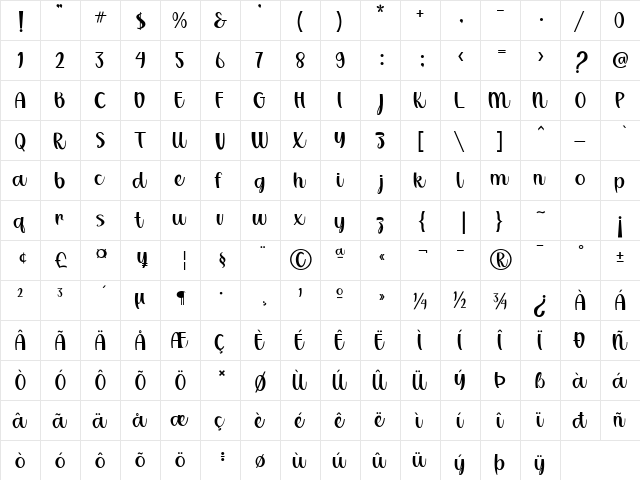
Bitterbeans Regular
Design Context for Bitterbeans Typeface
Bitterbeans is a composed and adaptable typeface that performs quietly and consistently across a wide range of design contexts.